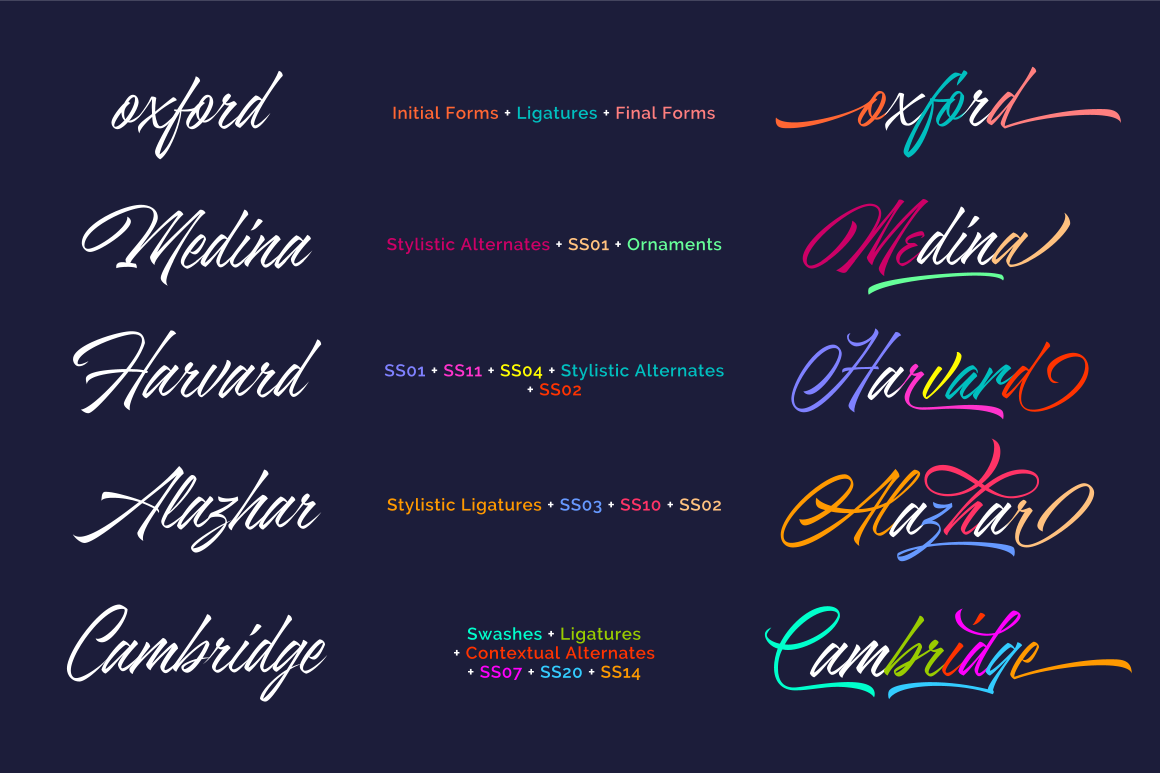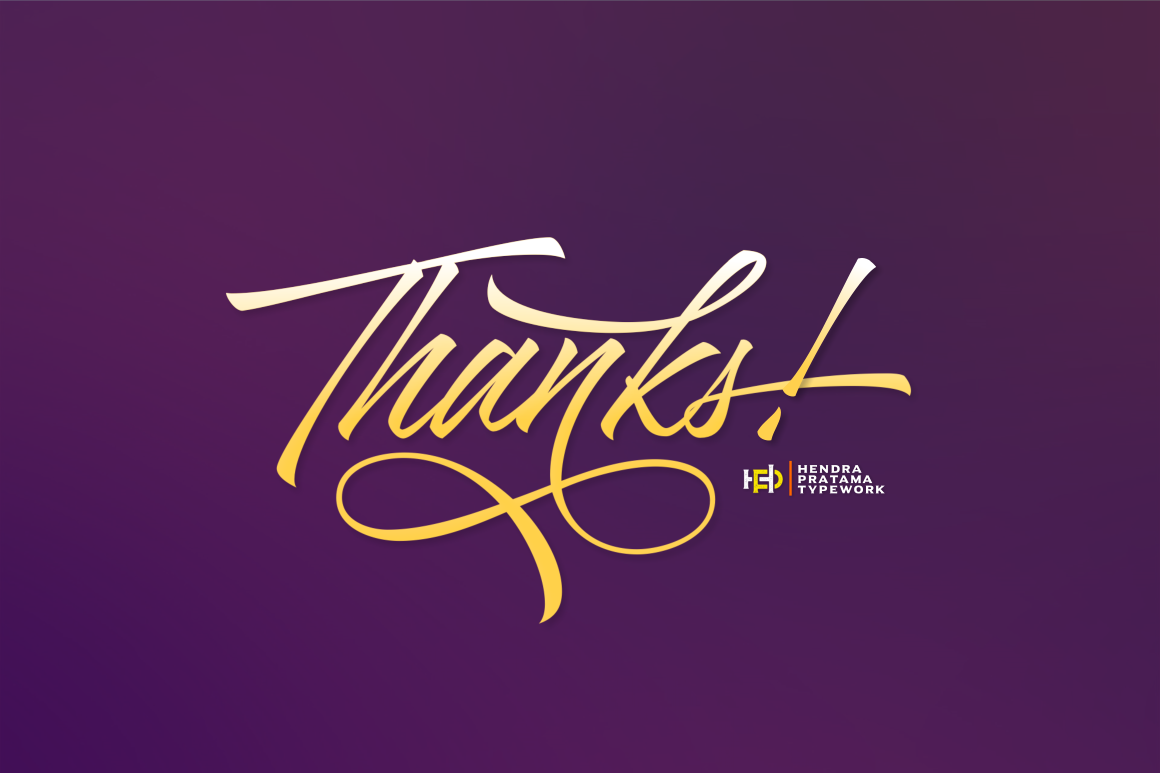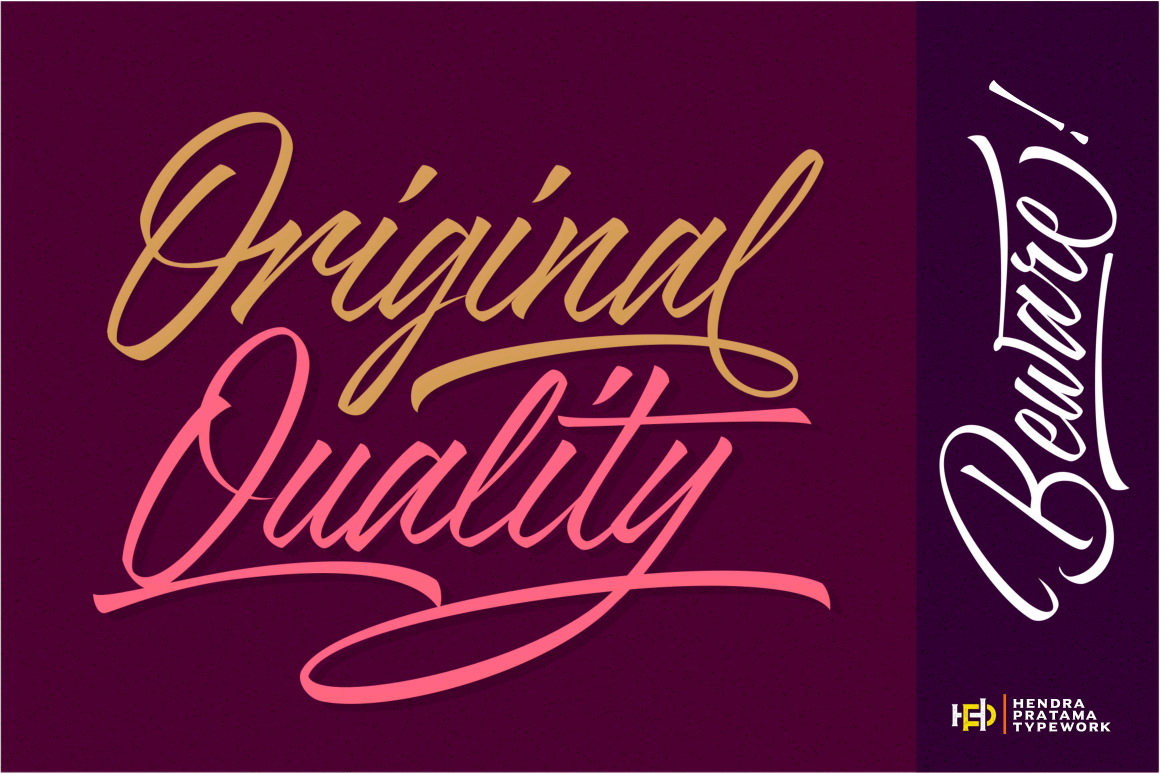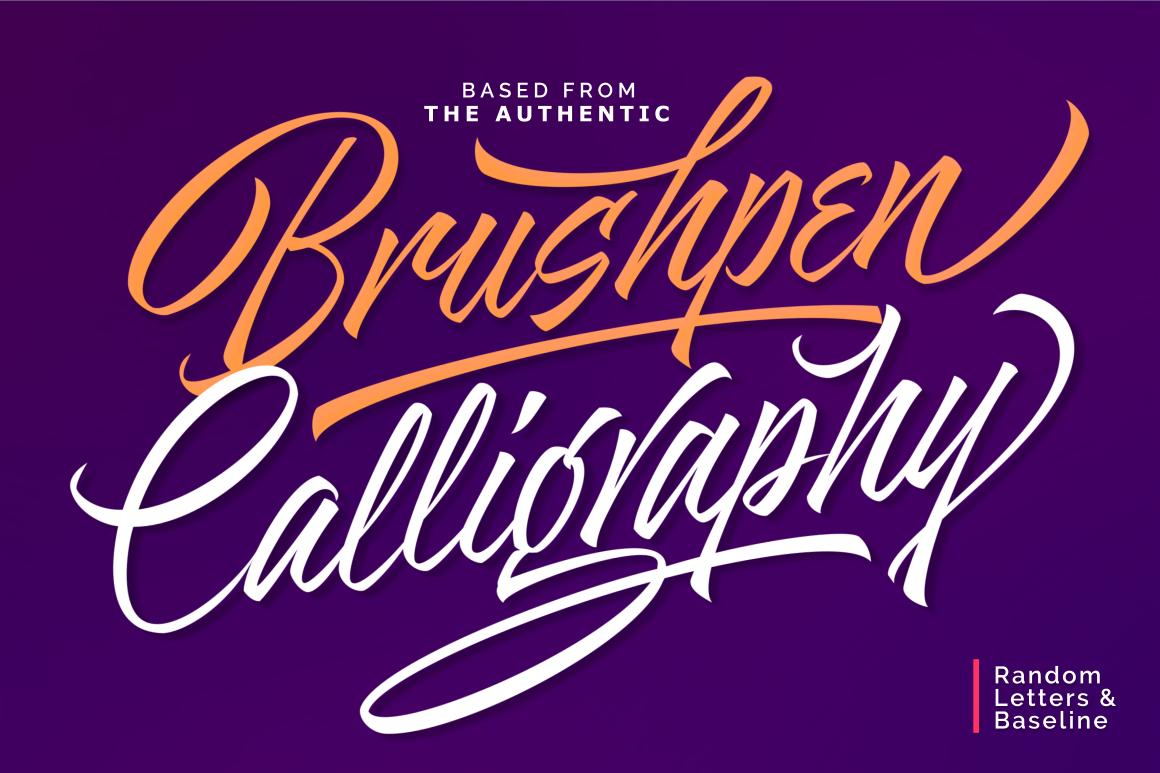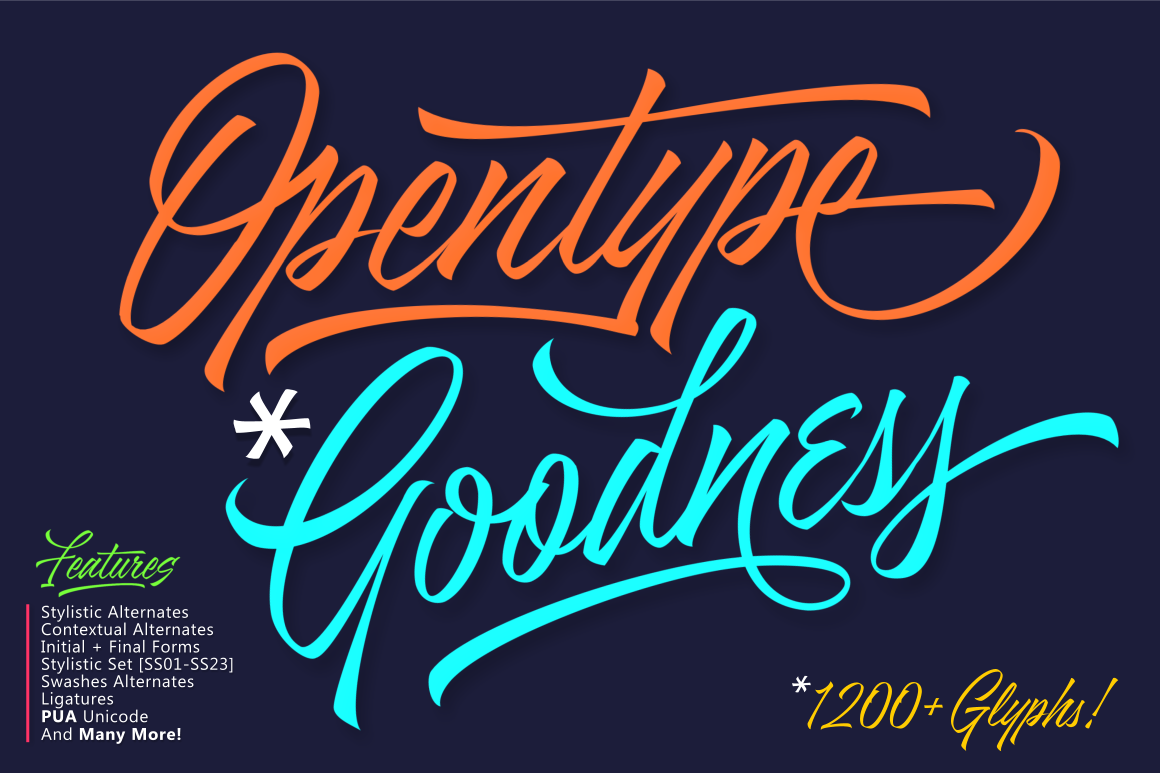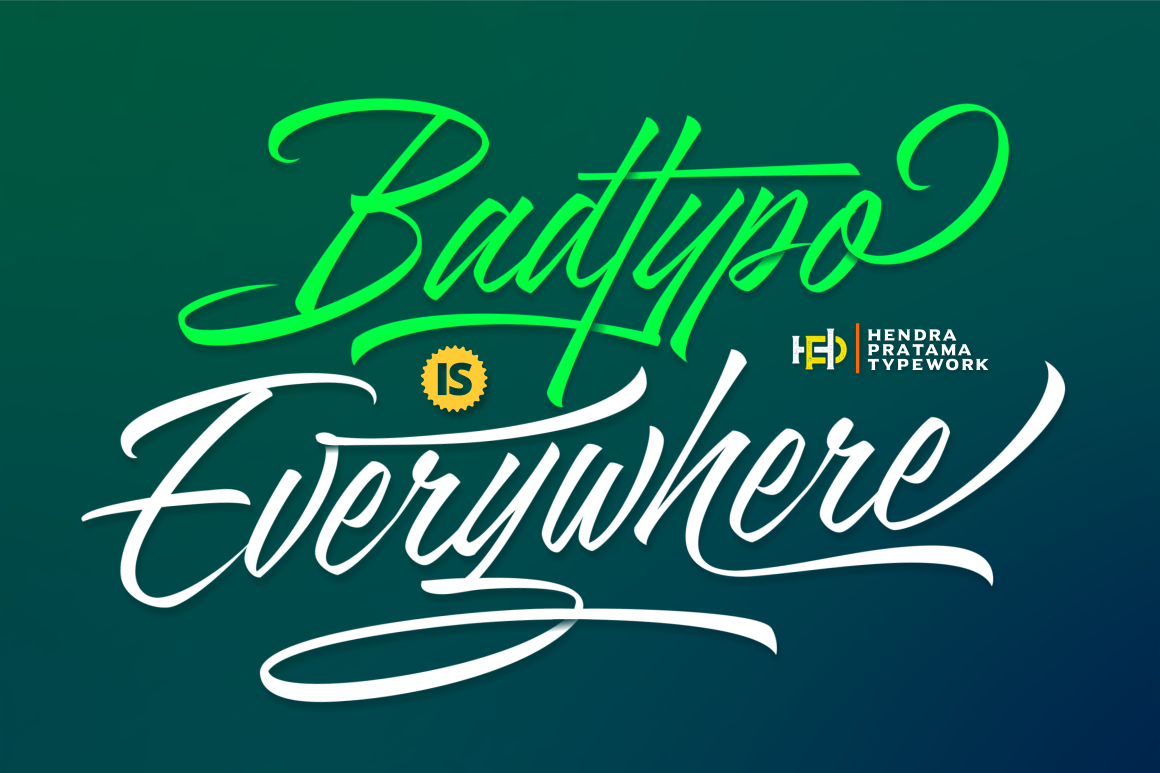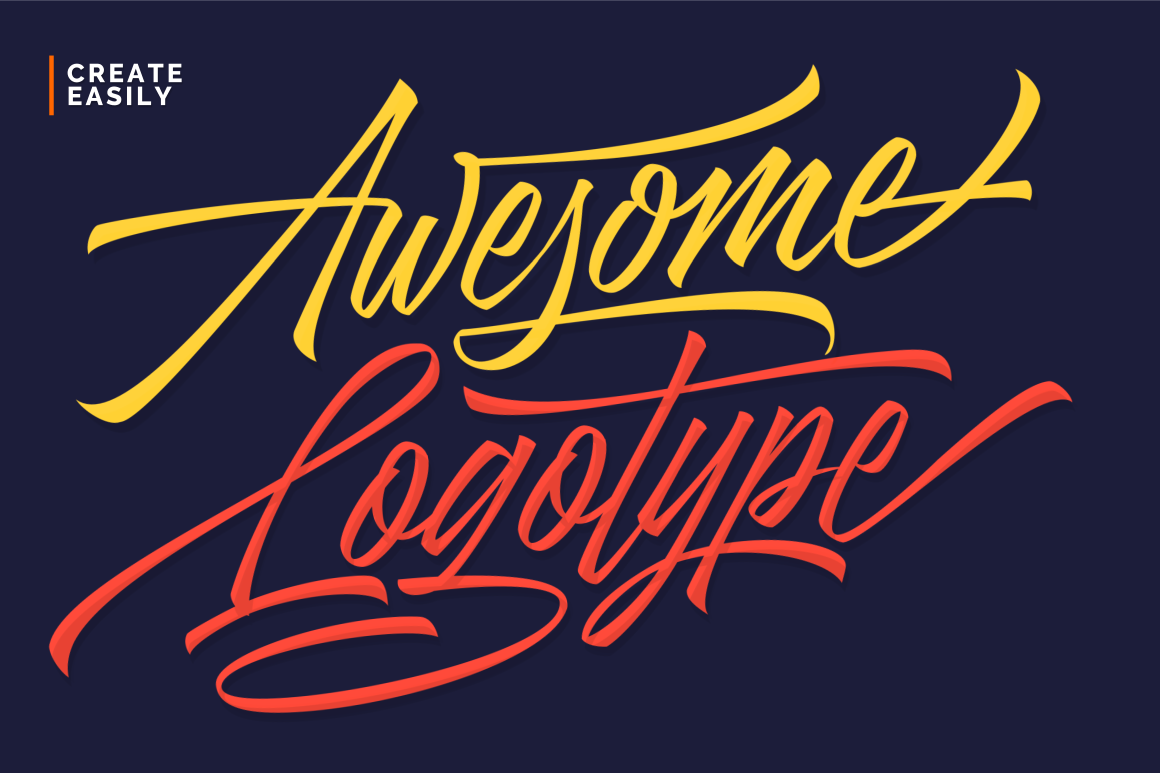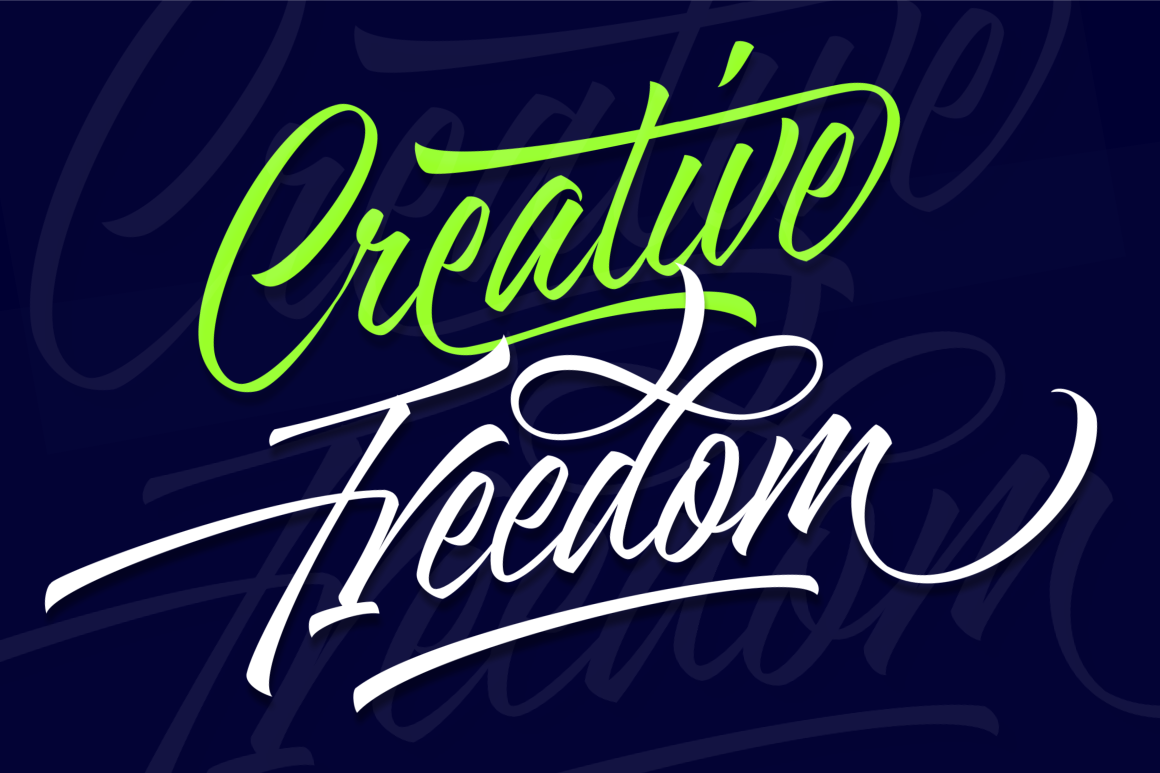
Azkia Script Font
About Azkia Script Font
Azkia Script is a stunning handmade brushpen calligraphy font.
Each and every of the 1200 unique glyphs where sketched on paper and digitall redrawn and optimized to have a perfect, consistent look. The letters will flow on your screen with this digitally crafted hand-lettering style.